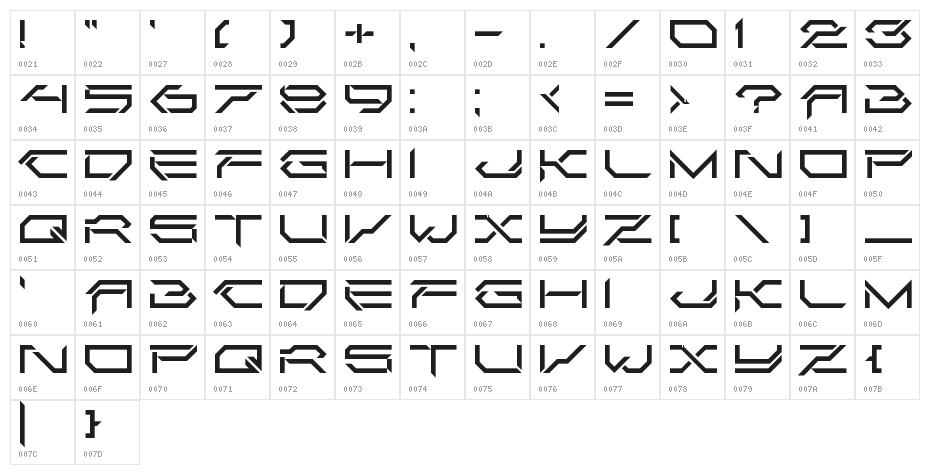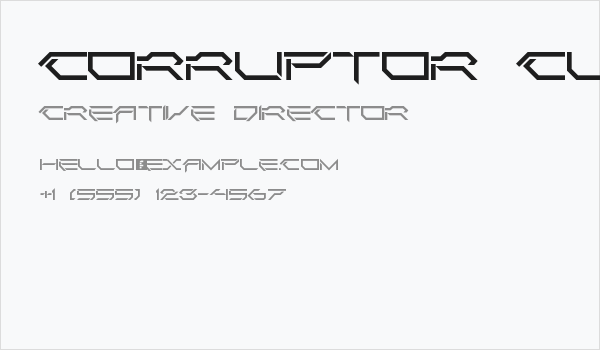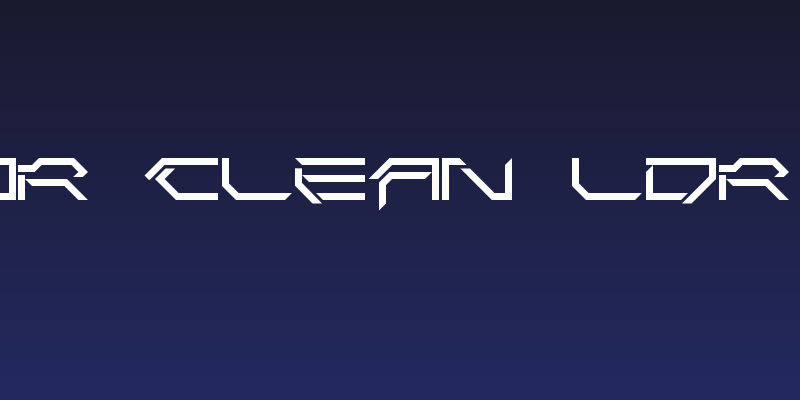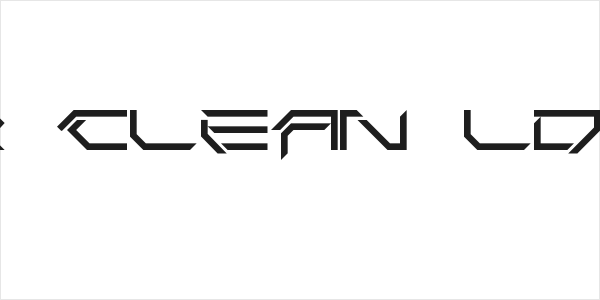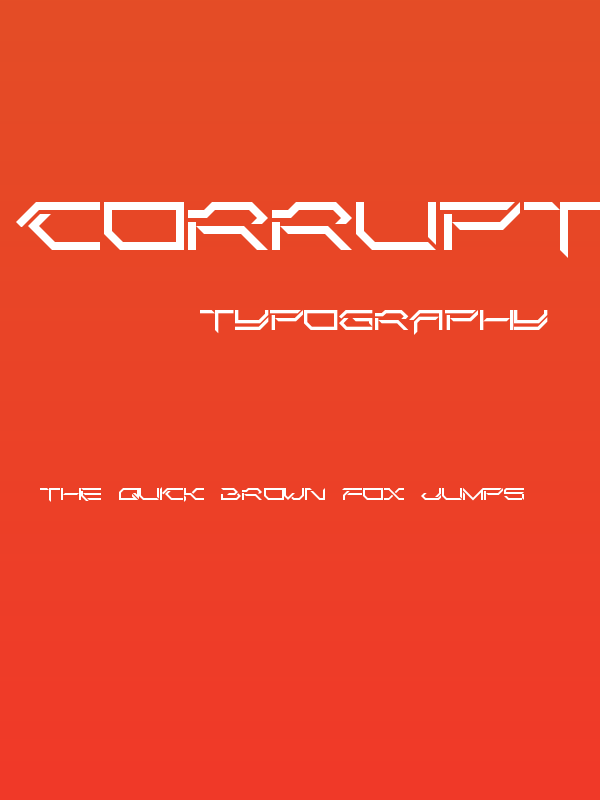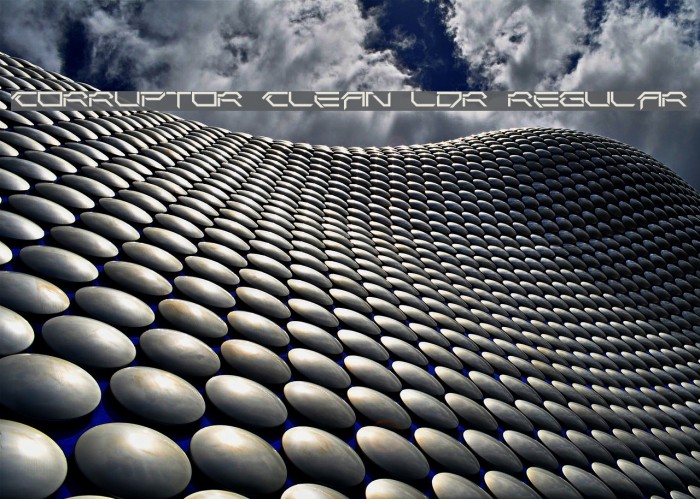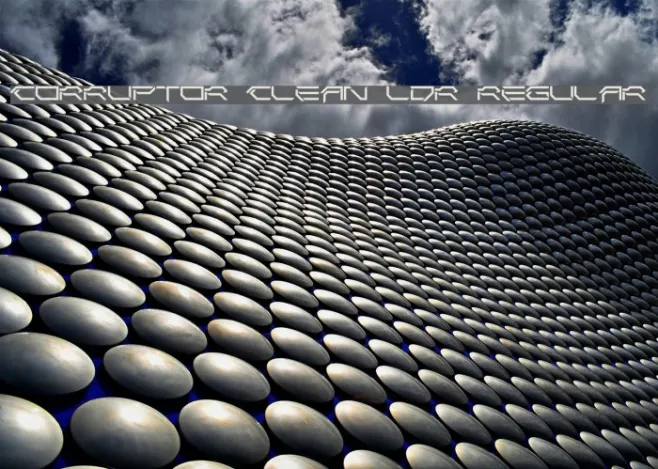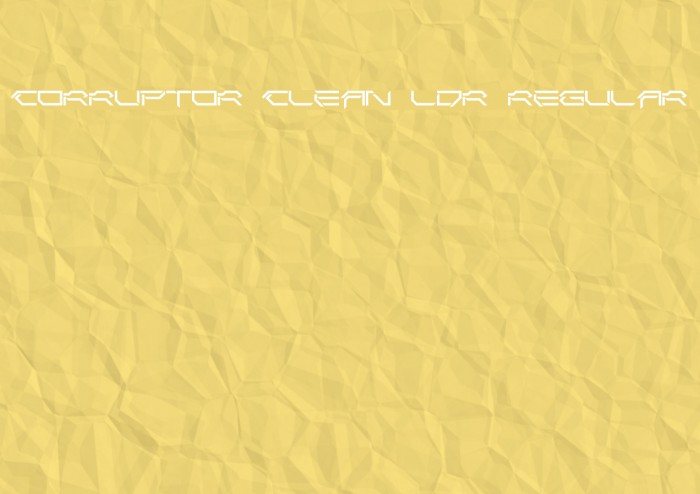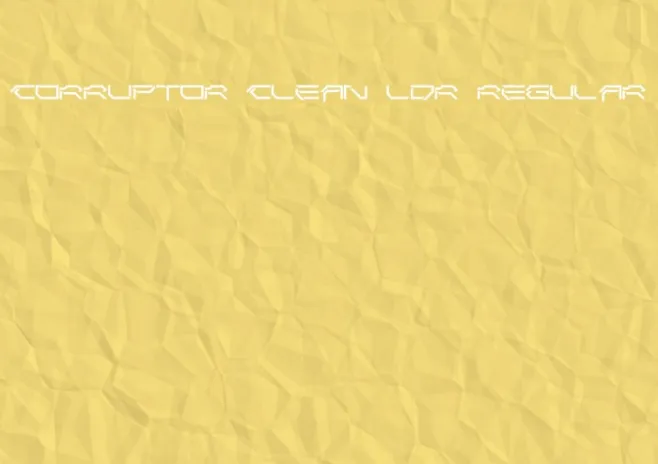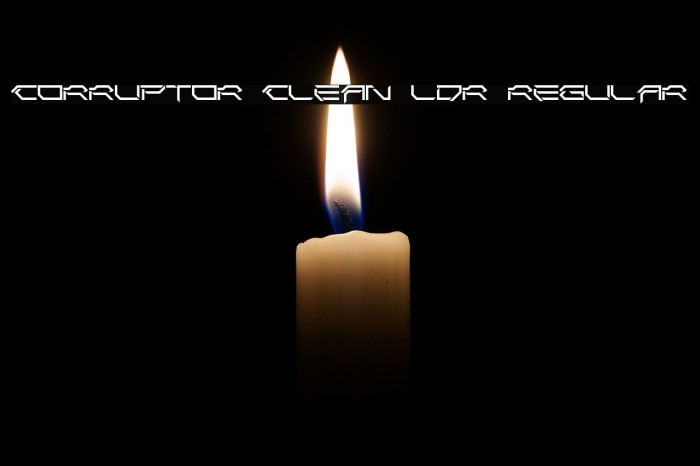
Corruptor Clean LDR Regular Font
Corruptor Clean LDR Regular Description
This font features a futuristic and angular design, characterized by sharp edges and geometric forms. Each character is constructed with a series of straight lines and angles, giving it a digital and high-tech appearance. The uppercase and lowercase letters maintain a consistent style, with the lowercase mirroring the uppercase in form. Numbers and special characters follow the same design principles, ensuring uniformity across the font. The overall look is bold and striking, making it ideal for projects that require a modern and cutting-edge aesthetic.
| Proposed Projects | Ideal for technology branding, sci-fi themed designs, video game interfaces, and modern posters. |